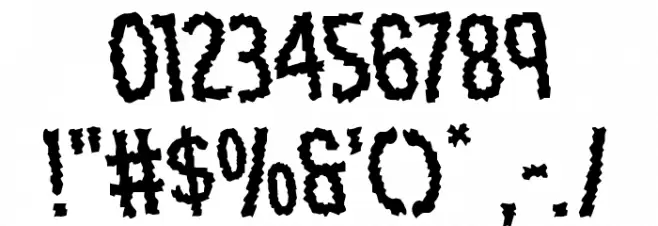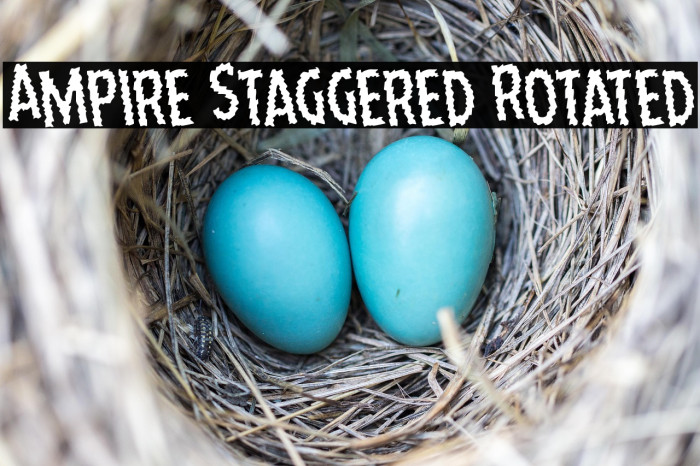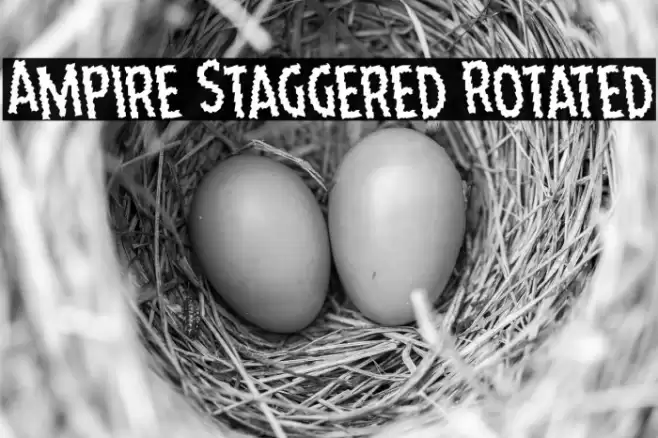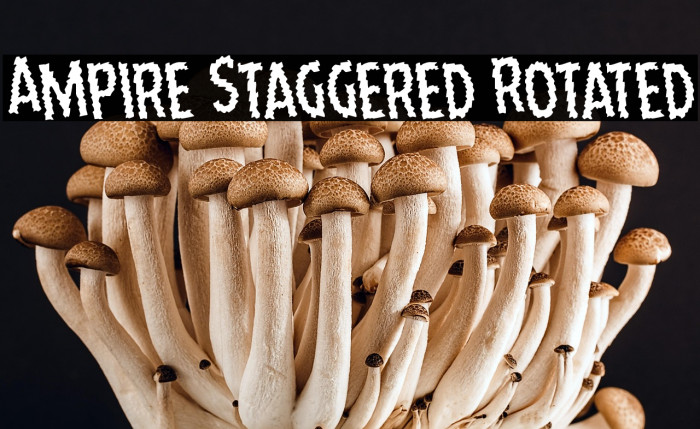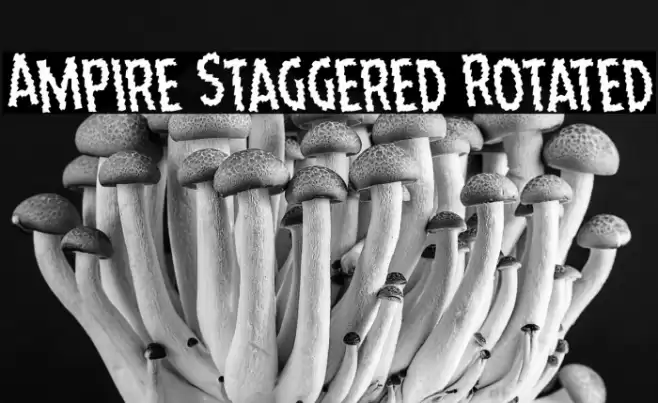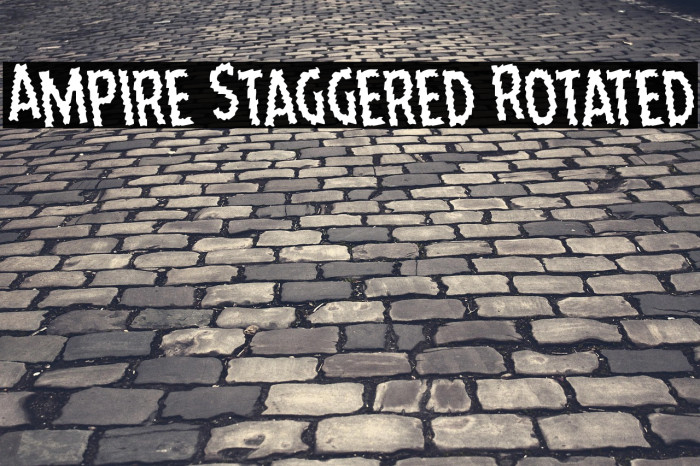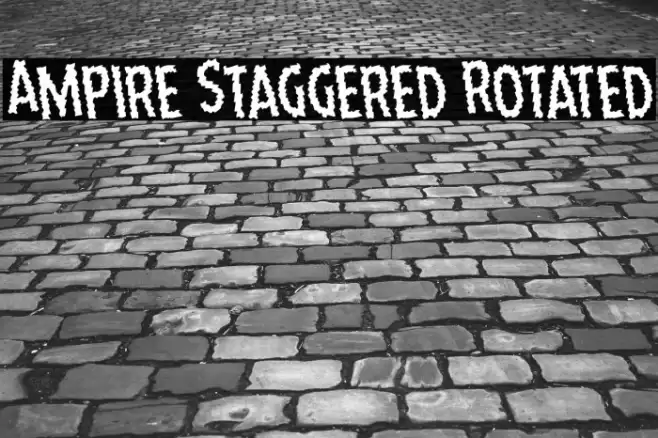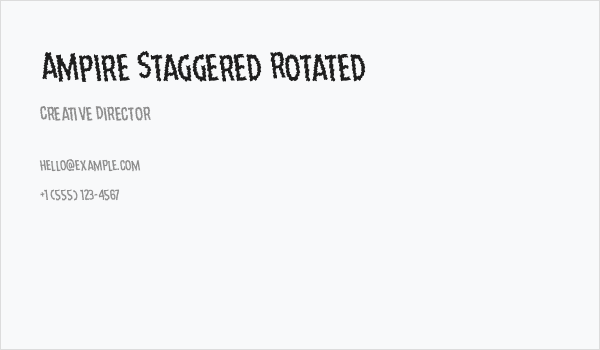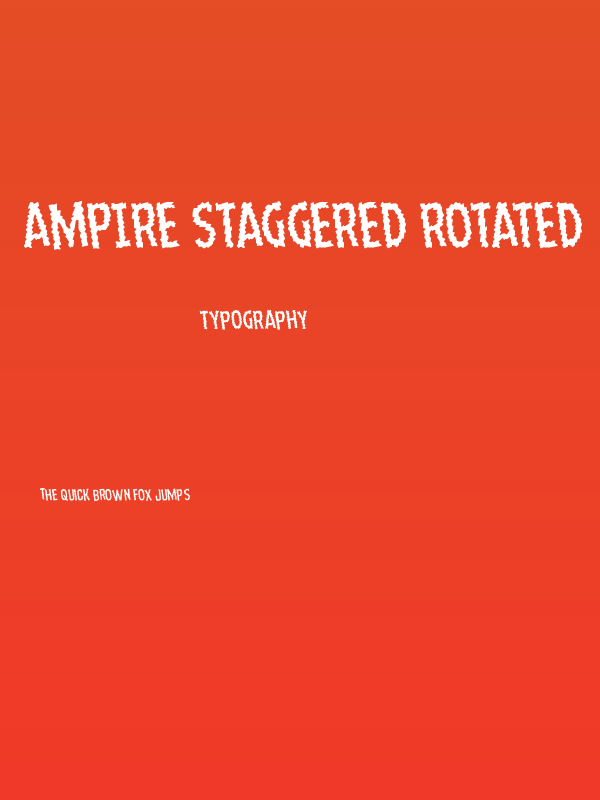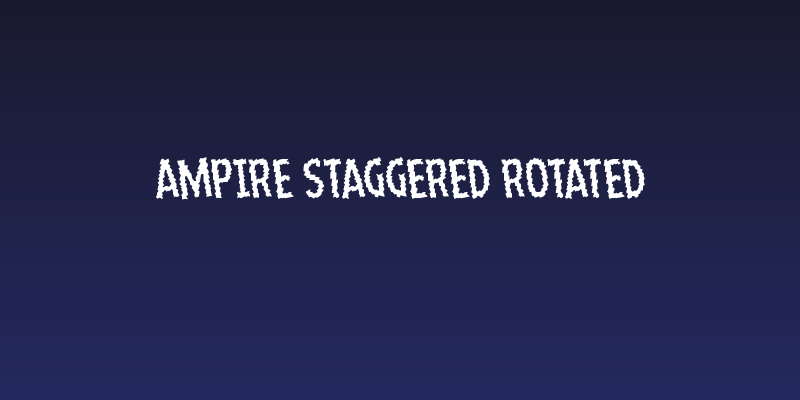
Ampire Staggered Rotated Font
Ampire Staggered Rotated Description
This font features a bold and jagged design, reminiscent of a rugged, hand-cut style. Each character appears as if it has been carved out with a serrated edge, giving it a dynamic and energetic appearance. The uppercase and lowercase letters maintain a consistent height, while the numbers and special characters follow the same jagged aesthetic. This font's unique style makes it stand out, with a slightly irregular alignment that adds to its edgy and unconventional look. The overall impression is one of movement and intensity, making it suitable for projects that require a bold and impactful visual statement.